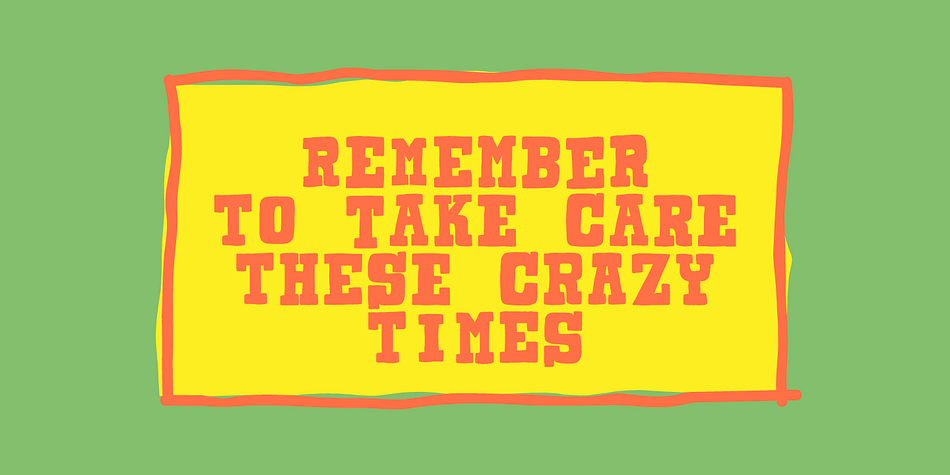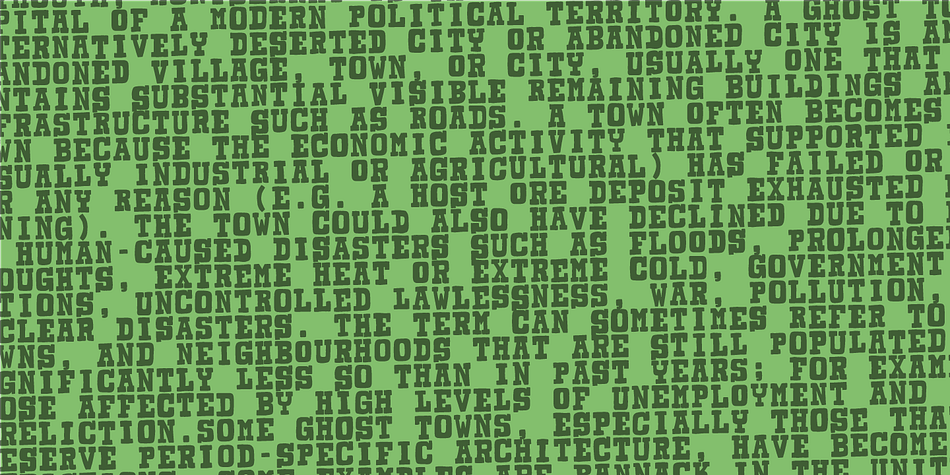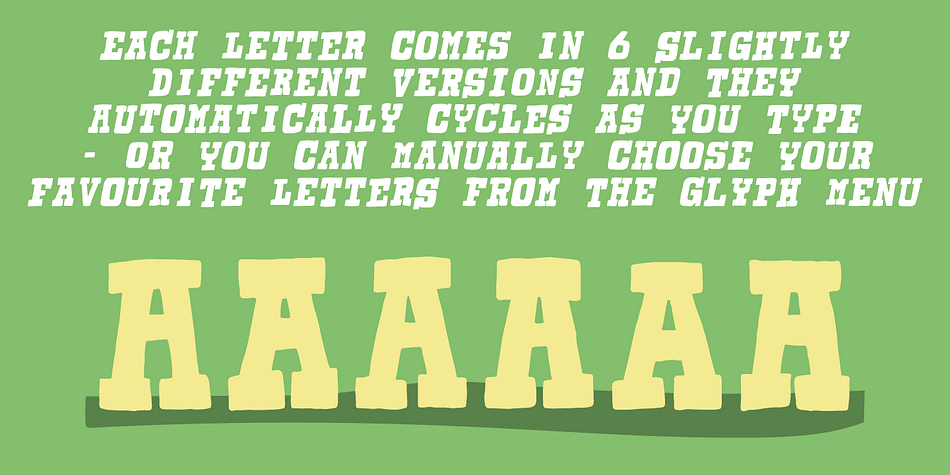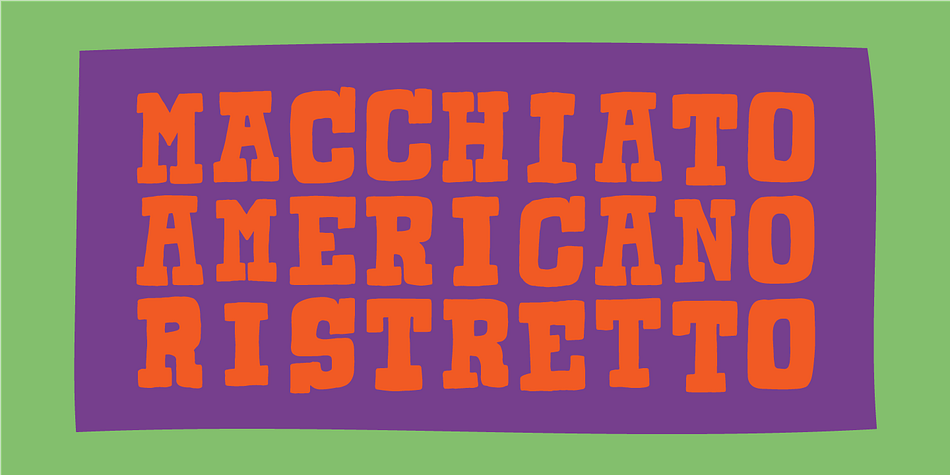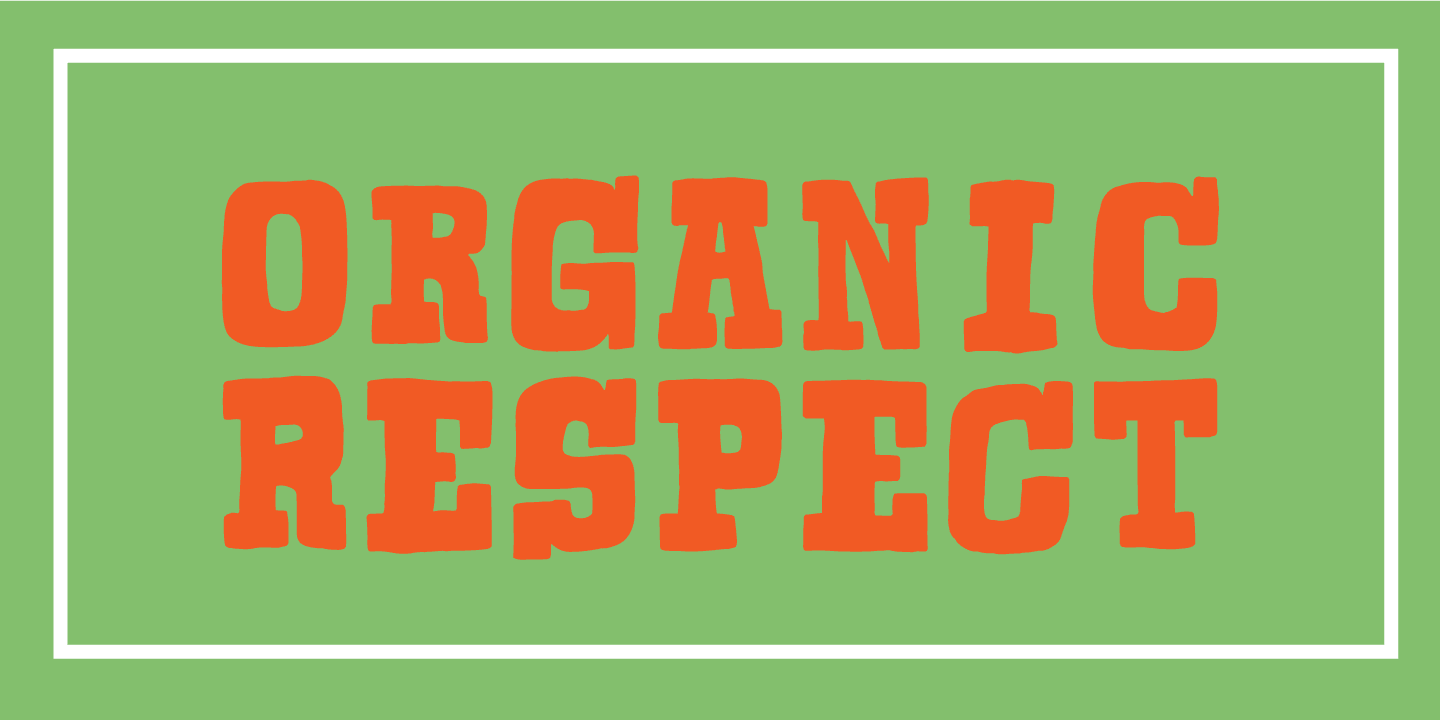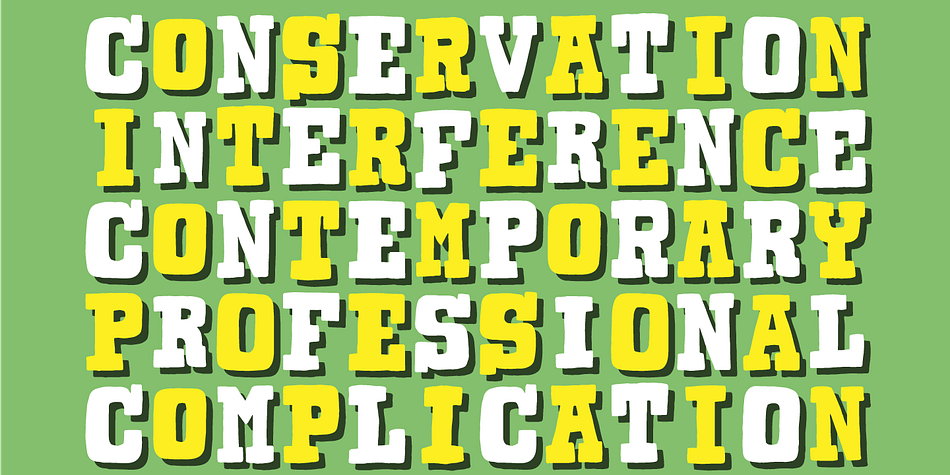
Designed by Jakob Fischer, Organic Respect is a display slab font family. This typeface has two styles and was published by Bogstav.
Organic Respect is my monospaced and organic slab serif font. Although the font is monospaced - which may not lead your mind to something organic - I did my best to make the letters appear vibrant and lively in an organic way.
I’ve added 6 slightly different letters for you to choose from, and they automatically cycle as you type, or you can manually select them from the glyph menu.